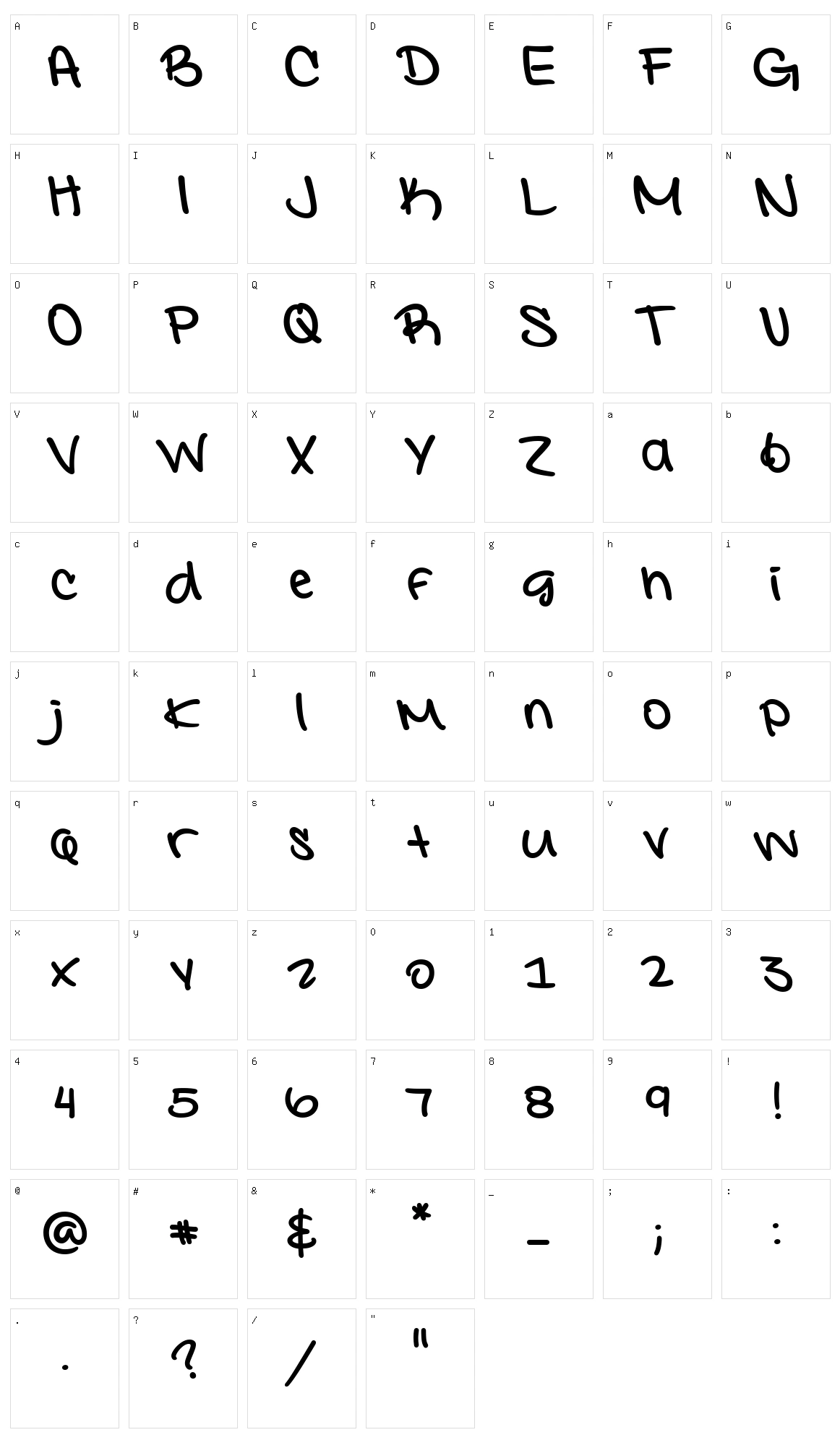
Interconnected
Designed by: Roland Huse Design
A handwriting blockletter font inspired by and based on the handwriting of Dianna Woodward, author and editor of the Interconnected Podcast.
The full version contains at least one stylistic alternate for all the lowercase and uppercase letters, some lowercase has 3 and discretional ligatures for fi, te, th, standard ligatures tt, jj, for a more organic look and flow. There are basic math symbols, currency, punctuation and accents for Western and Eastern European languages 675 glyphs in total.